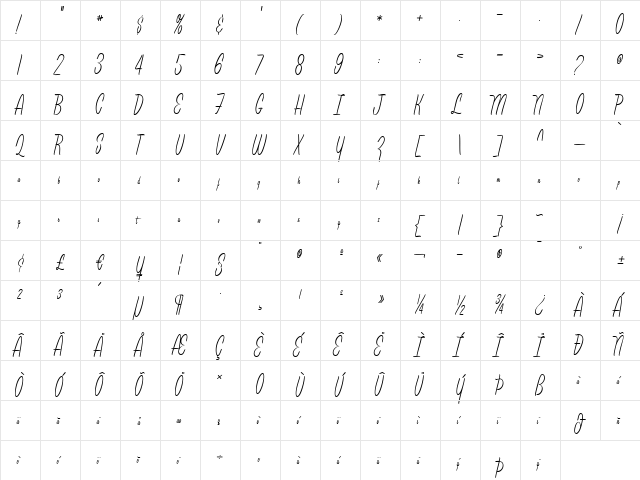
Leisure Script Marquee Regular Font Preview
Leisure Script Marquee Regular
Leisure Script Marquee Regular Font Details
Design Context for Leisure Script Marquee Typeface
Leisure Script Marquee flows with the natural rhythm of handwritten lettering, making it ideal for designs that call for warmth and personal expression.
Font Pairing: Combine Leisure Script Marquee with a simple geometric sans for maximum contrast — the tension between flowing curves and clean structure is a classic typographic pairing.
Pro Tip: Use Leisure Script Marquee for short runs of text — names, titles, or taglines. Extended body copy in script faces tires the eye quickly.